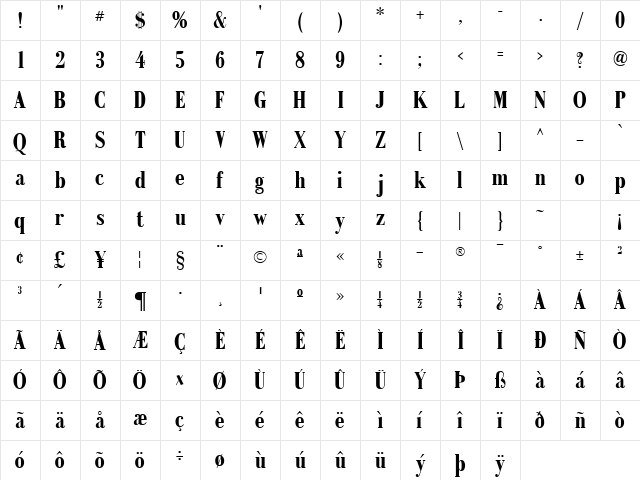
RecitalSSK Bold
Design Context for RecitalSSK
RecitalSSK is a composed and adaptable typeface that performs quietly and consistently across a wide range of design contexts. Its bold stroke weight gives it real presence on the page.